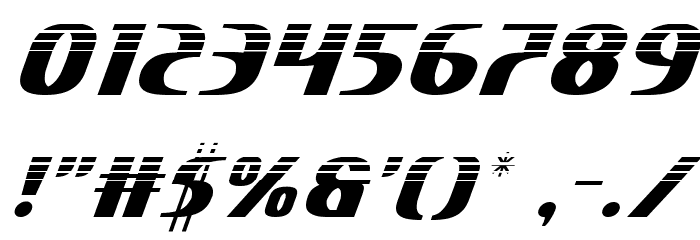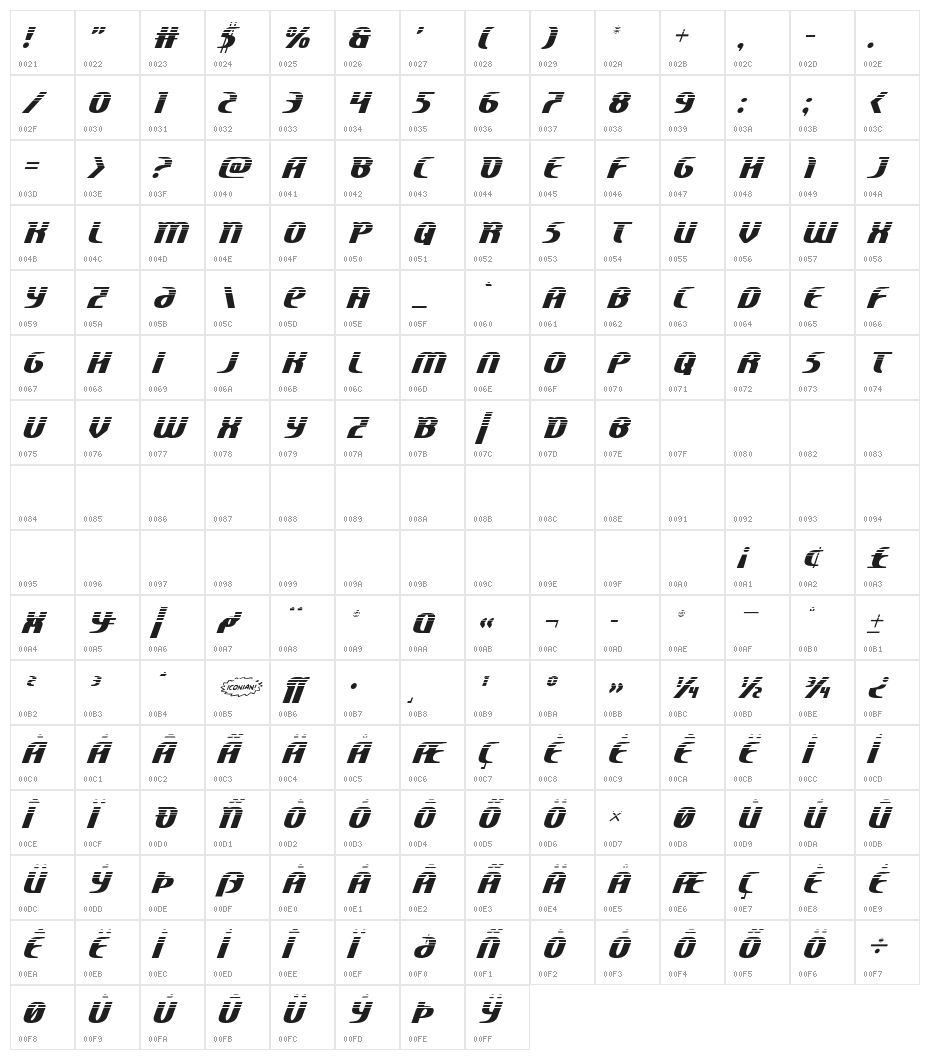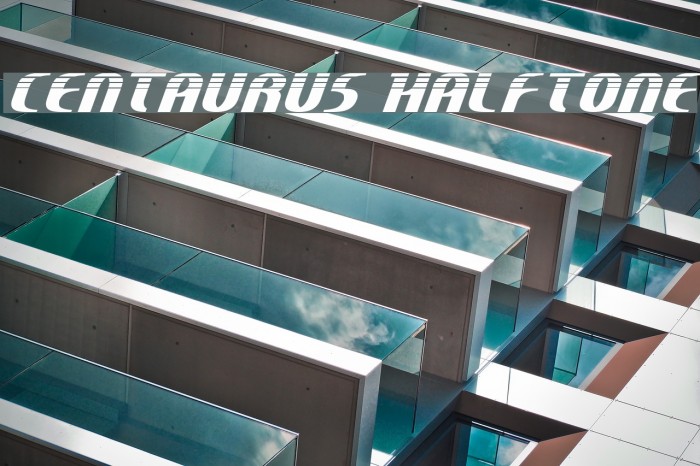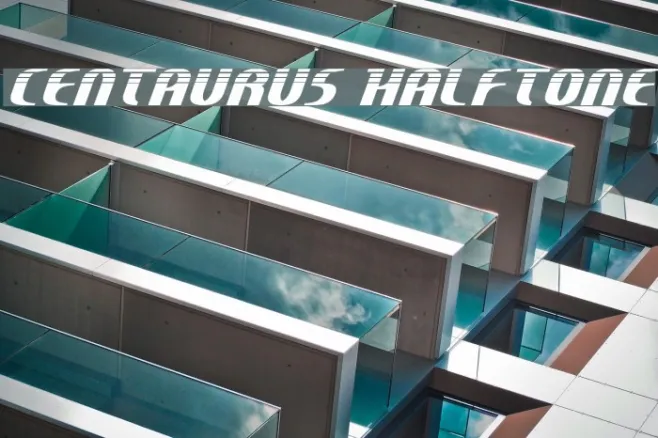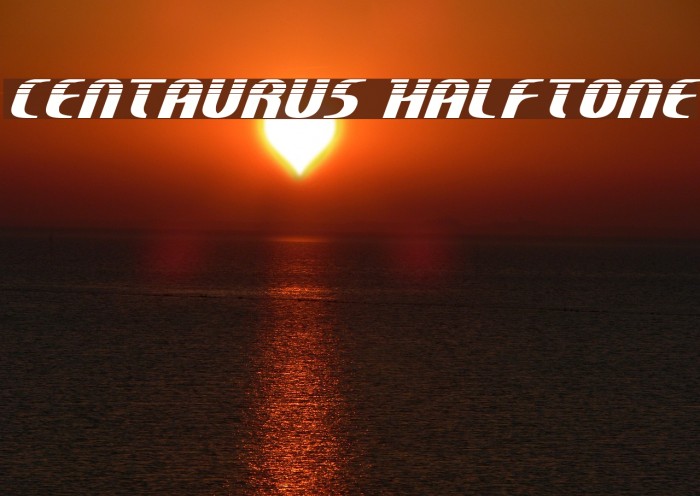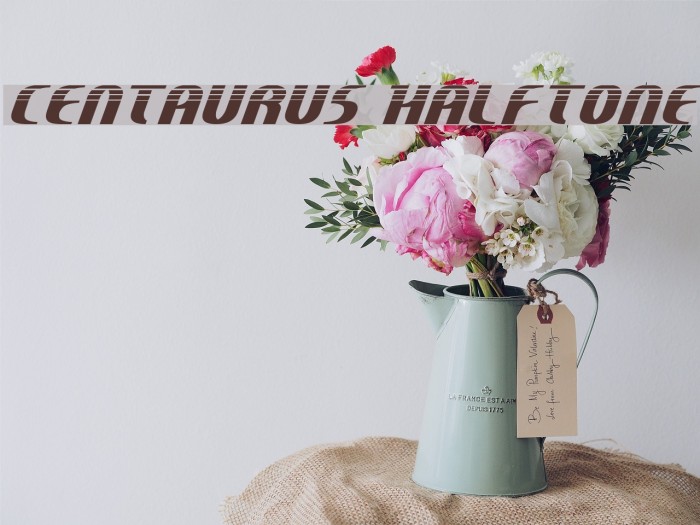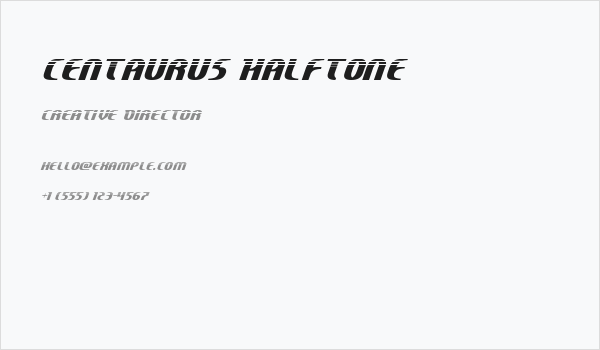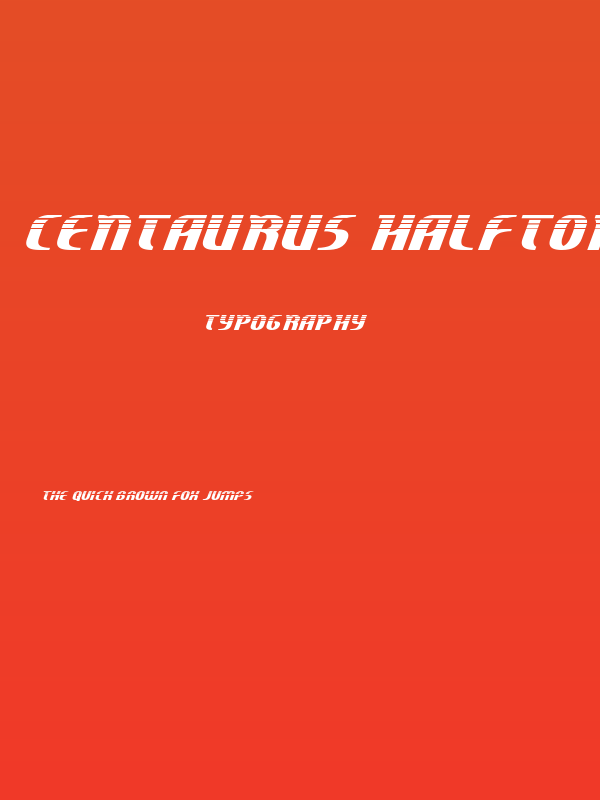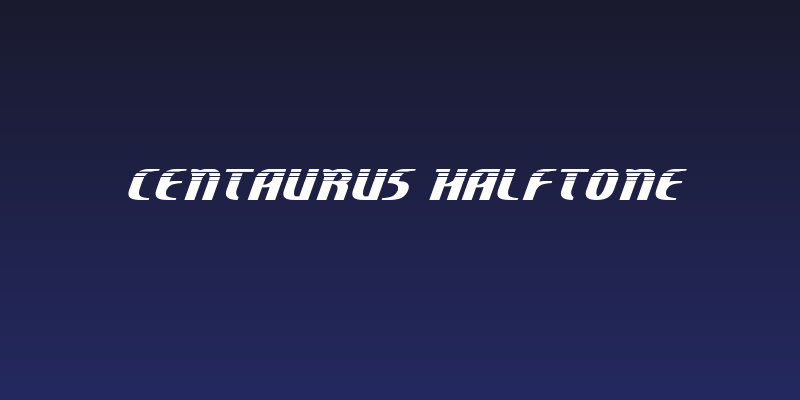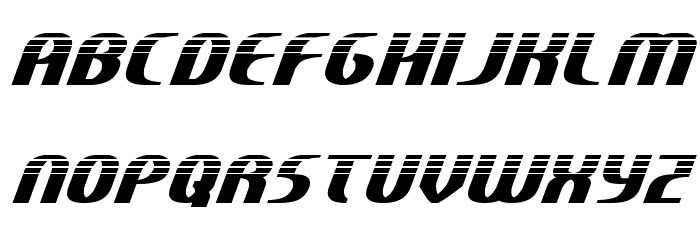
Centaurus Halftone Font
Centaurus Halftone Description
This font features a bold and dynamic style with a halftone effect that adds a sense of movement and energy. The characters are slanted, giving them a forward-leaning appearance that suggests speed and modernity. The halftone pattern within each letter creates a unique texture, making it stand out in any design. The uppercase and lowercase letters maintain a consistent style, while the numbers and special characters complement the overall aesthetic. This font is perfect for projects that require a futuristic or edgy look.
| Proposed Projects | Ideal for sports branding, futuristic posters, edgy advertisements, and dynamic logo designs. |